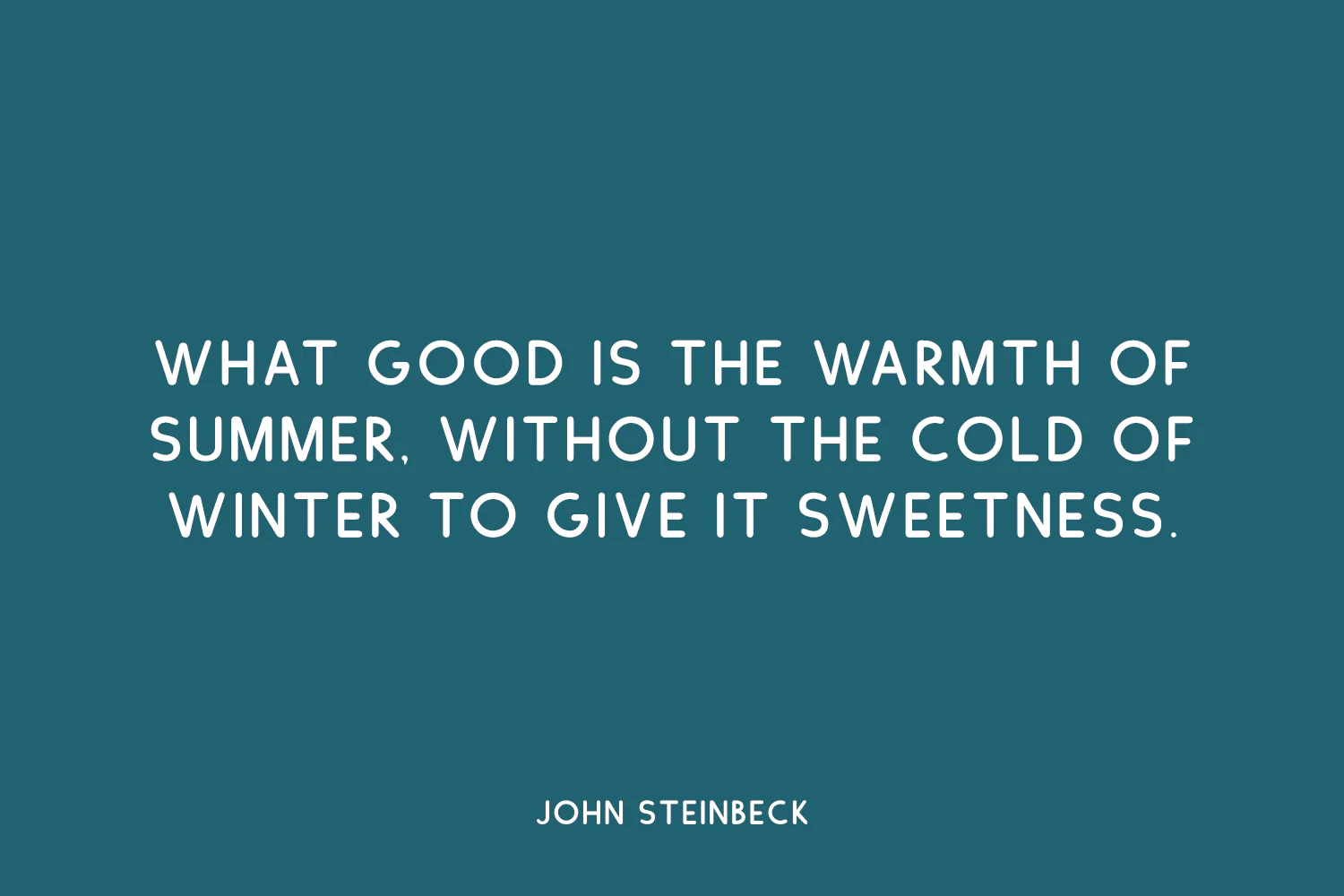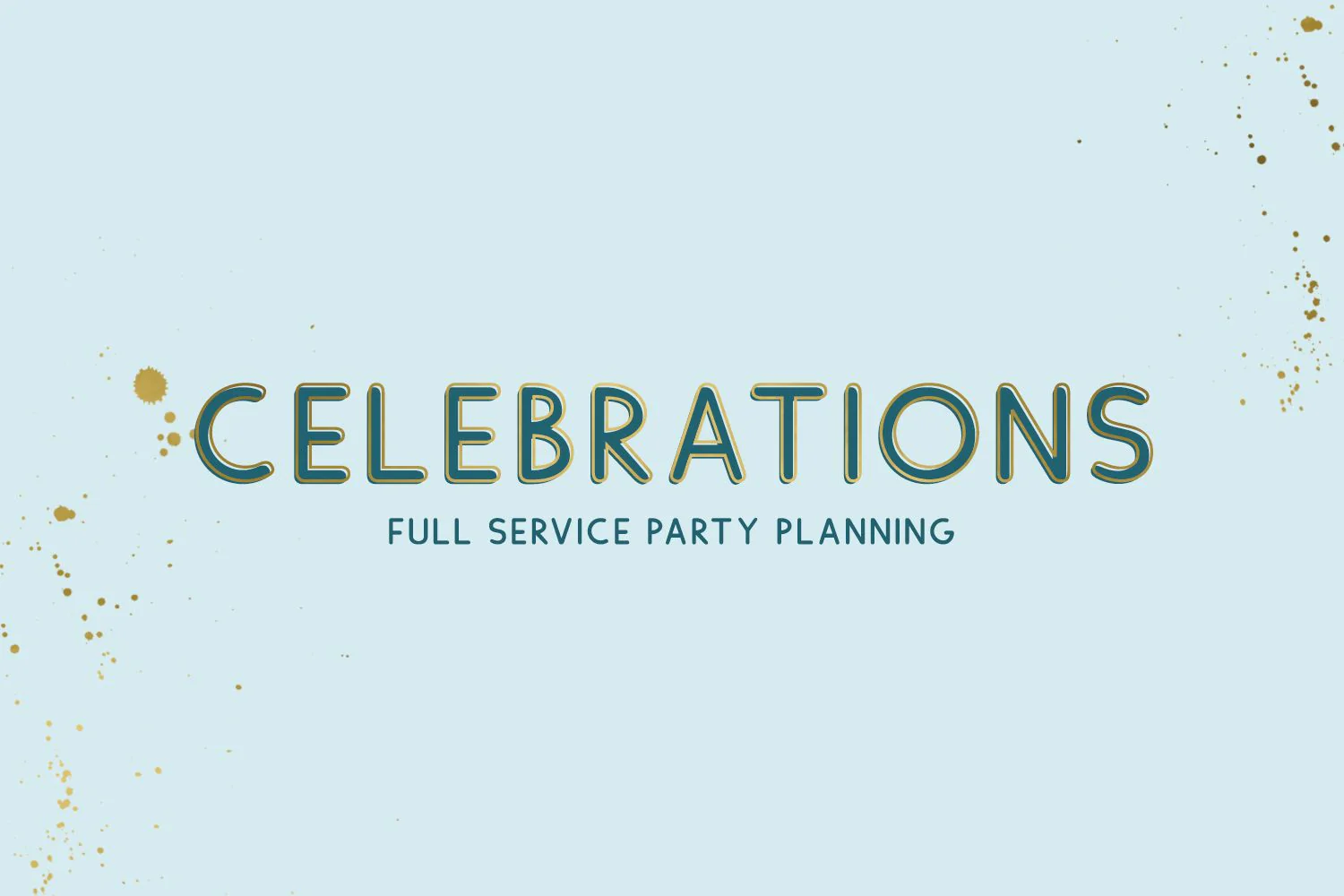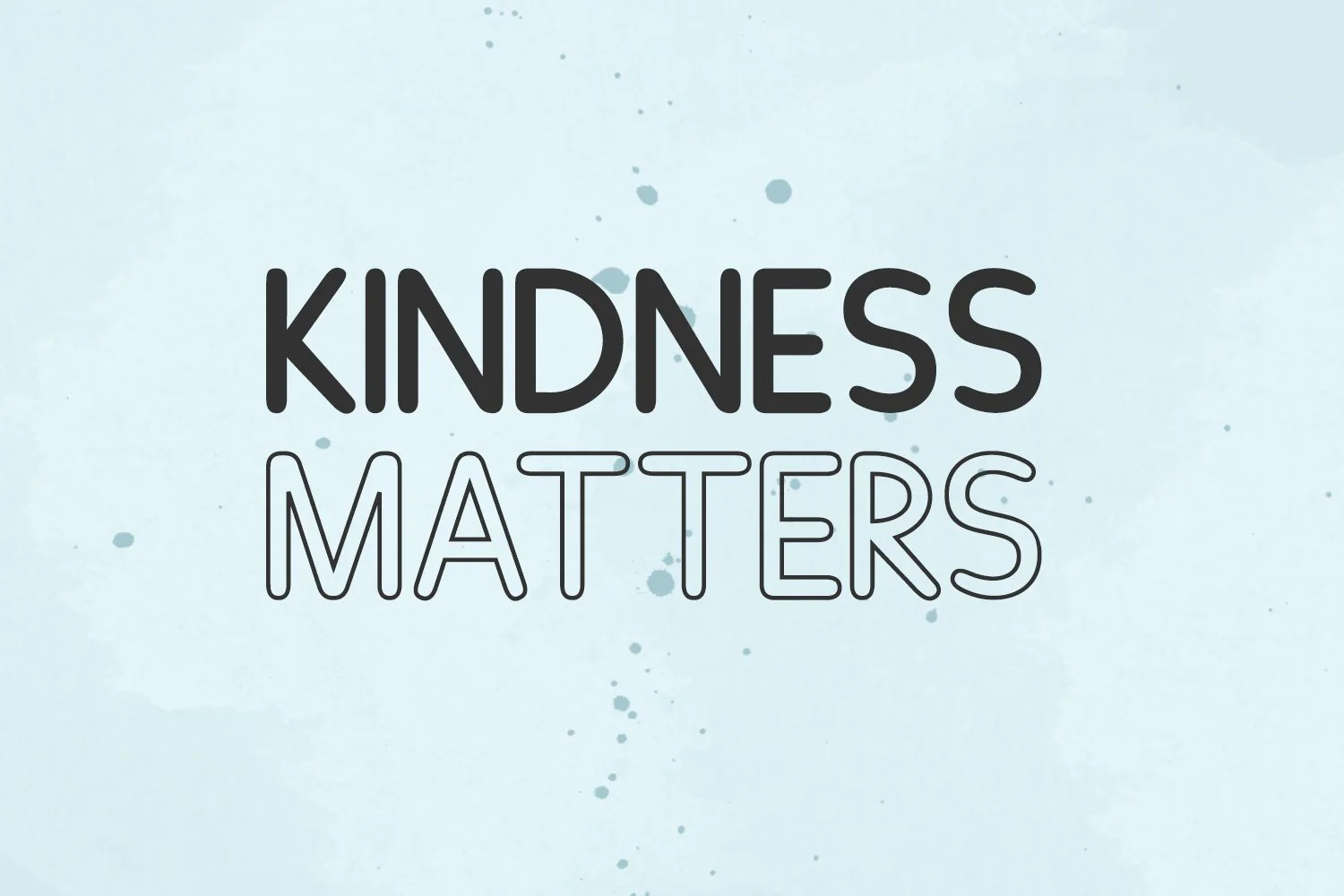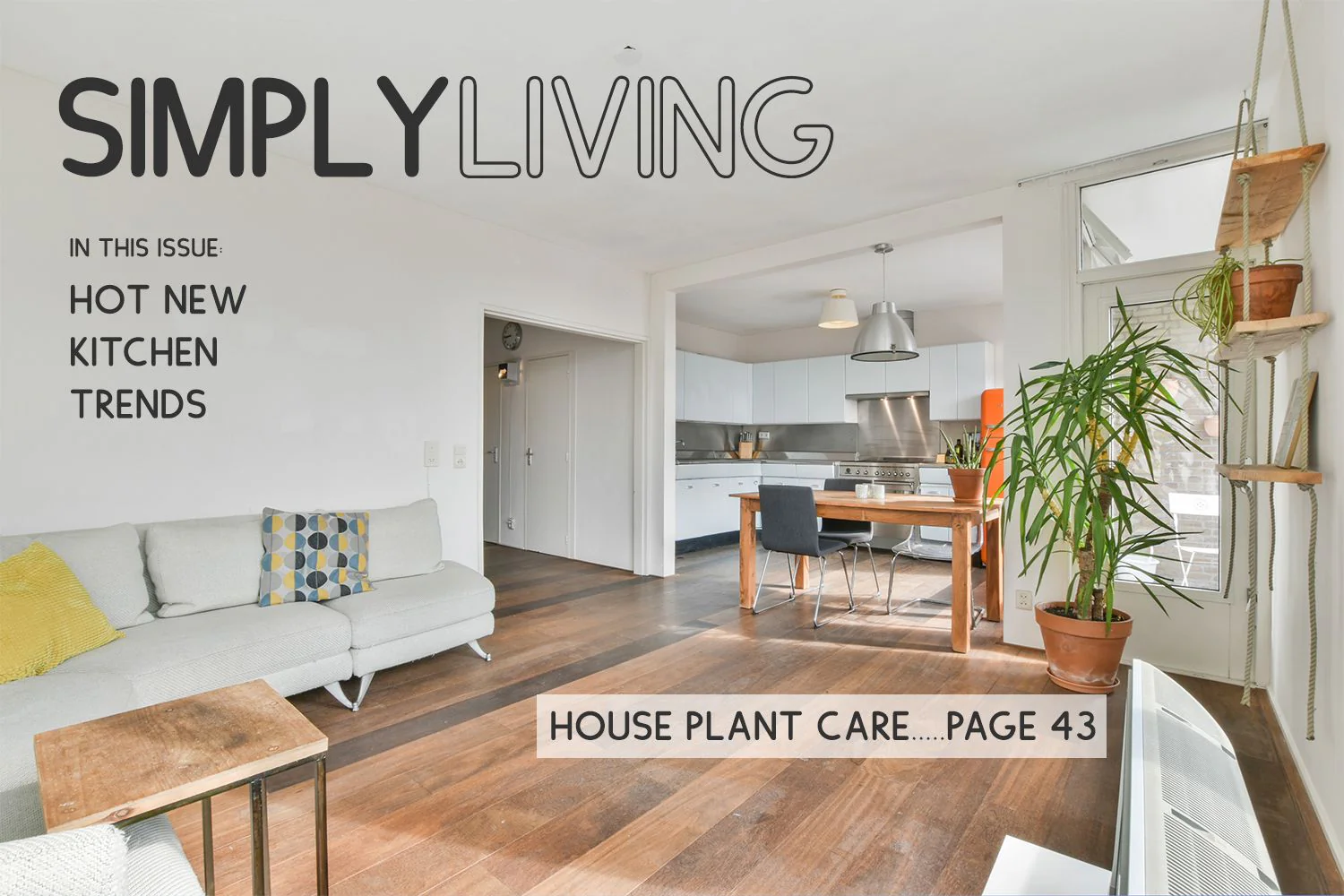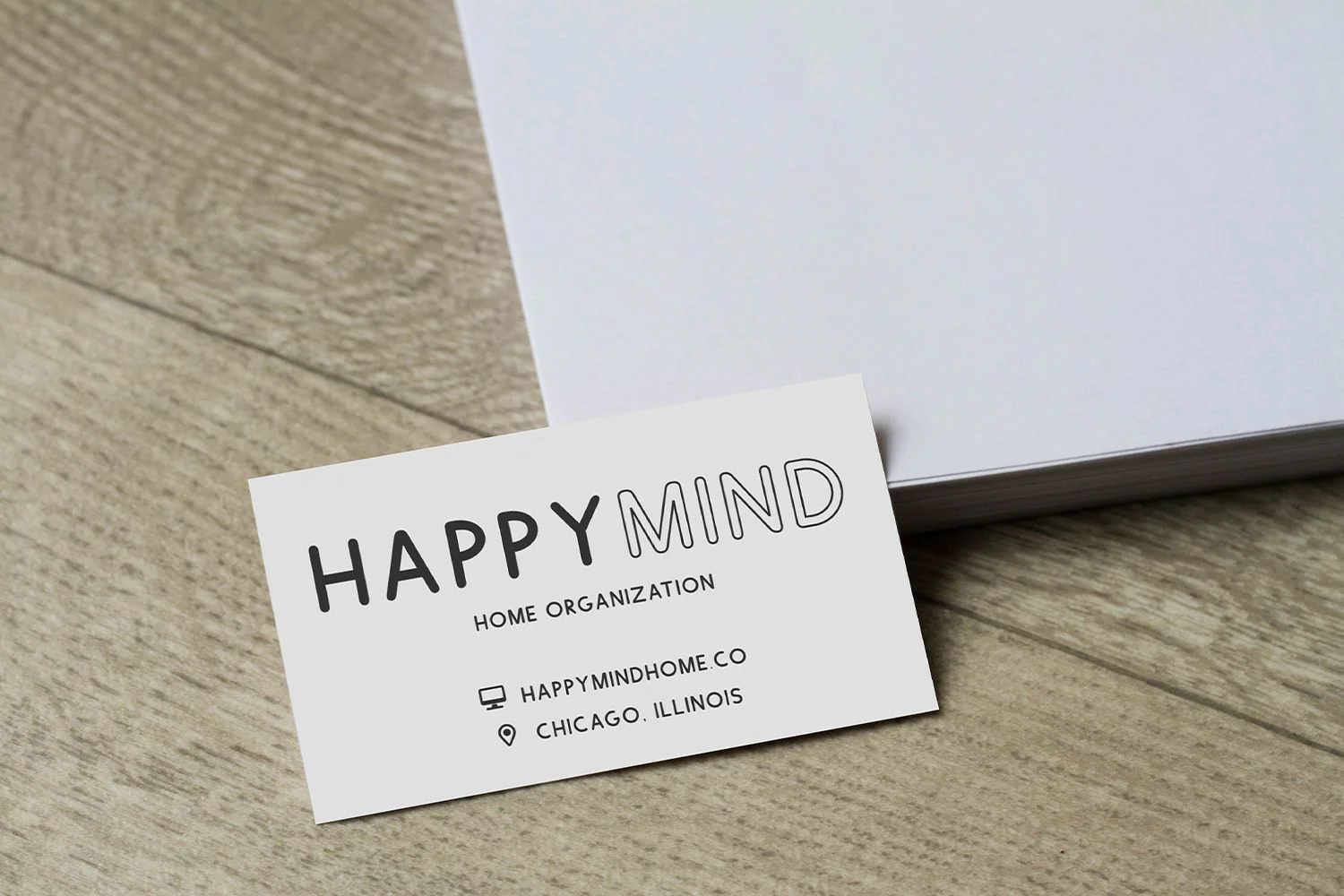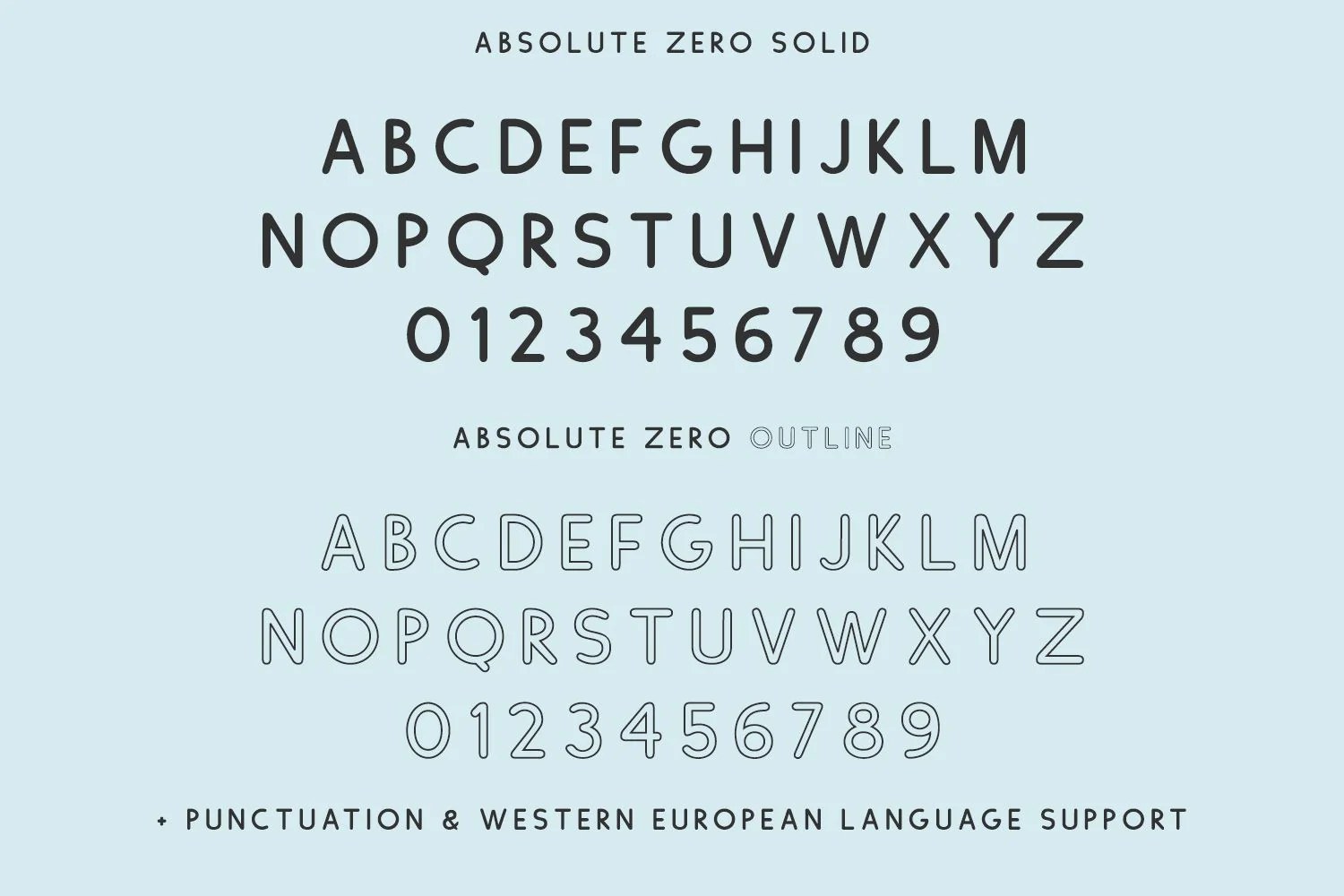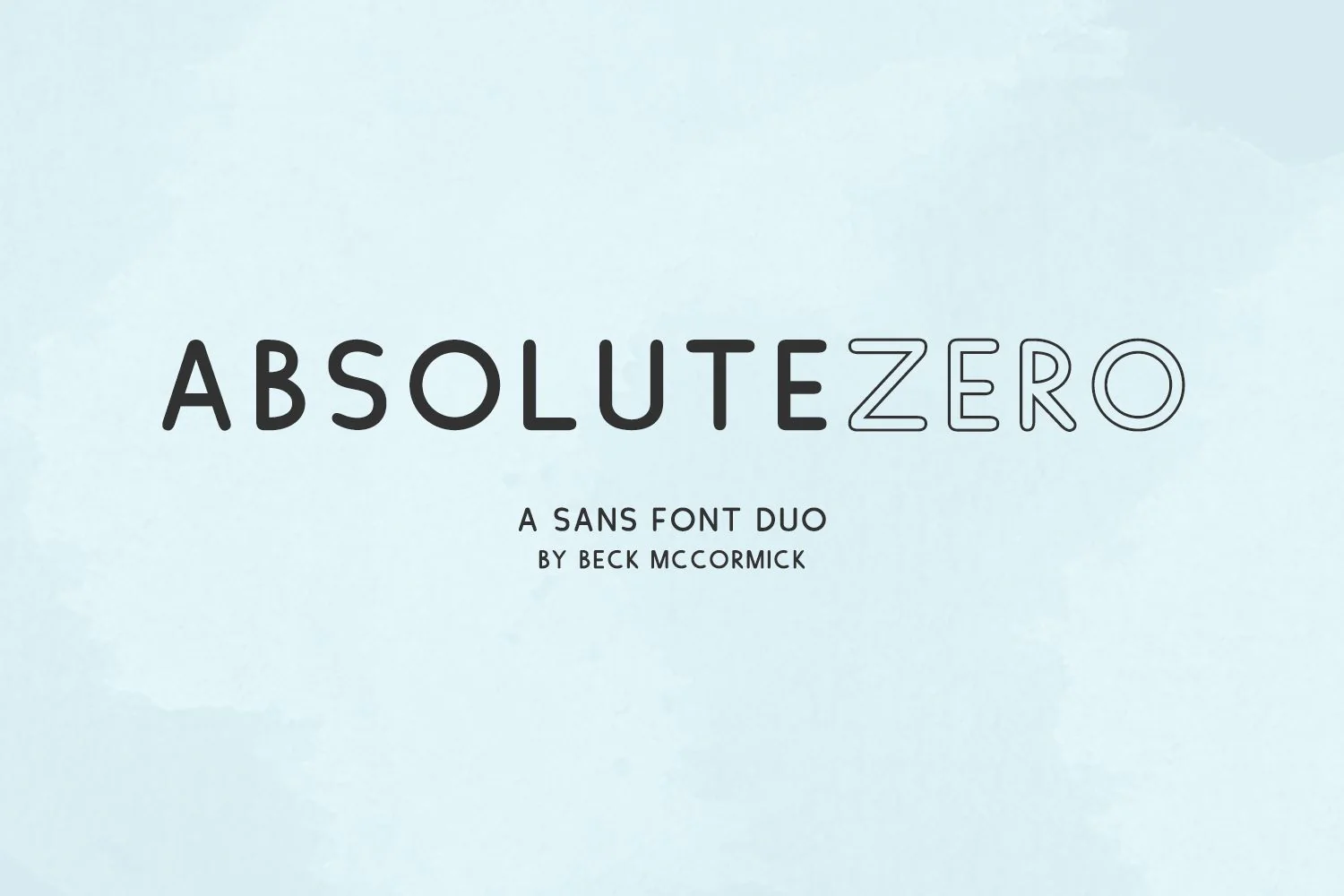
Meet Absolute Zero, an all-caps font duo that includes a regular, solid version and an outline version. Absolute Zero is modern & tidy. It looks great as stand-alone text, combined in a design, and as a layered design!
Absolute Zero is best for:
- logos + branding
- printed materials, both for attention grabbing headlines and easy to read blocks of content
- header elements that need handwritten touch
- quote graphics for social media like Facebook or Instagram
Absolute Zero includes:
- full uppercase characters for both caps & lowercase glyphs